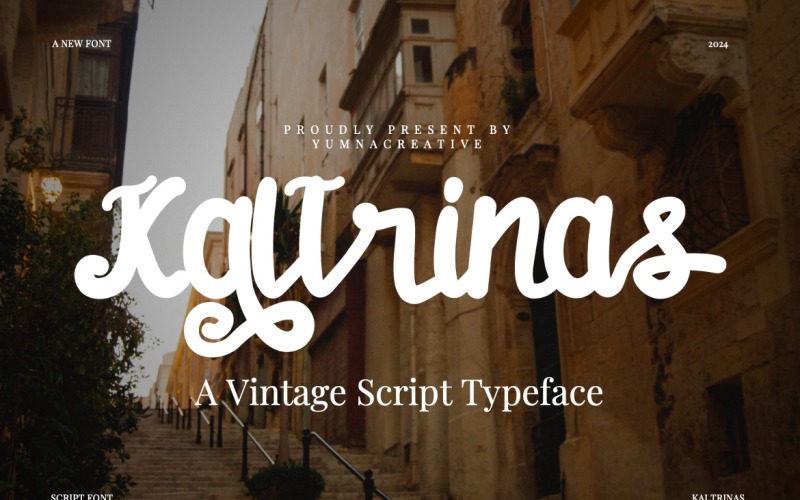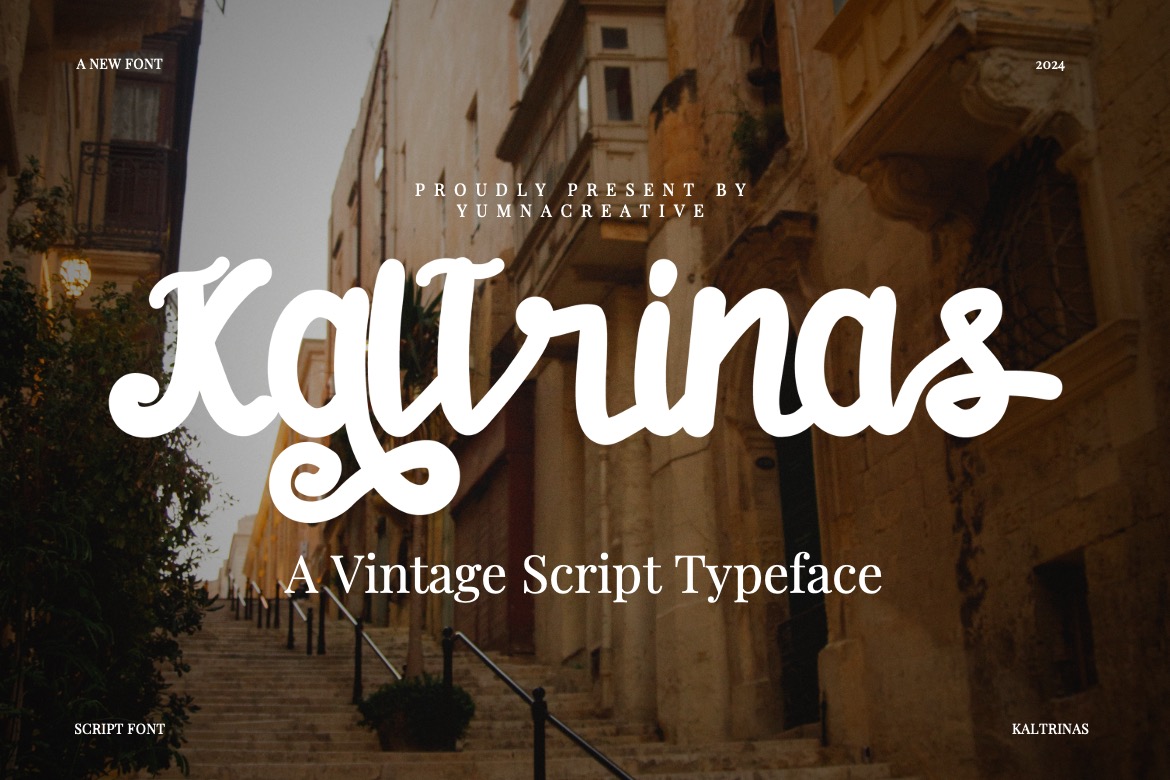
Kaltrinas - Vintage Script Font
Introducing **Kaltrinas - Vintage Script Font**
This Font is a delicate, elegant and flowing handwritten font. It has beautiful and well as a unique blend of ligatures a letter, so that the authors compose it with a and little swirly embedding, so that a modern font is formed and ready to make a statement by adding elegant and unique flair to your next design project. Add it to your most creative ideas and notice how it makes them come alive!
- Uppercase and Lowercase letters
- Alternate and Ligature
- Numbering and Punctuations